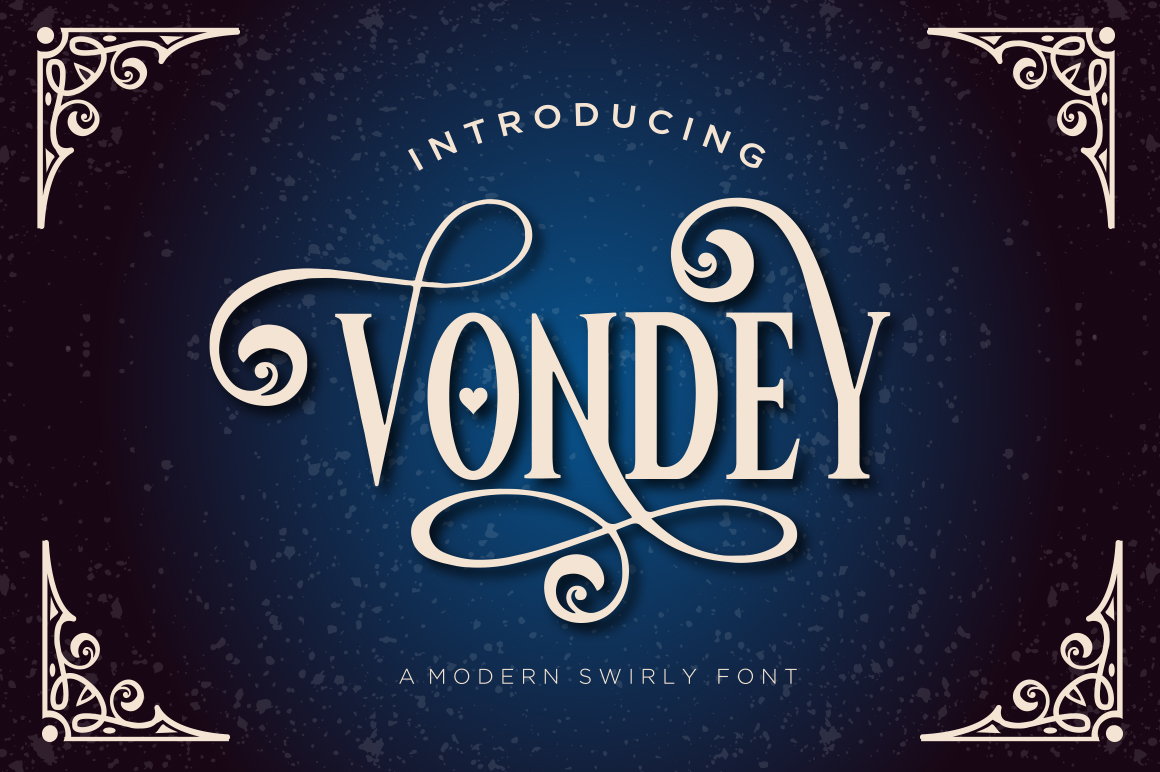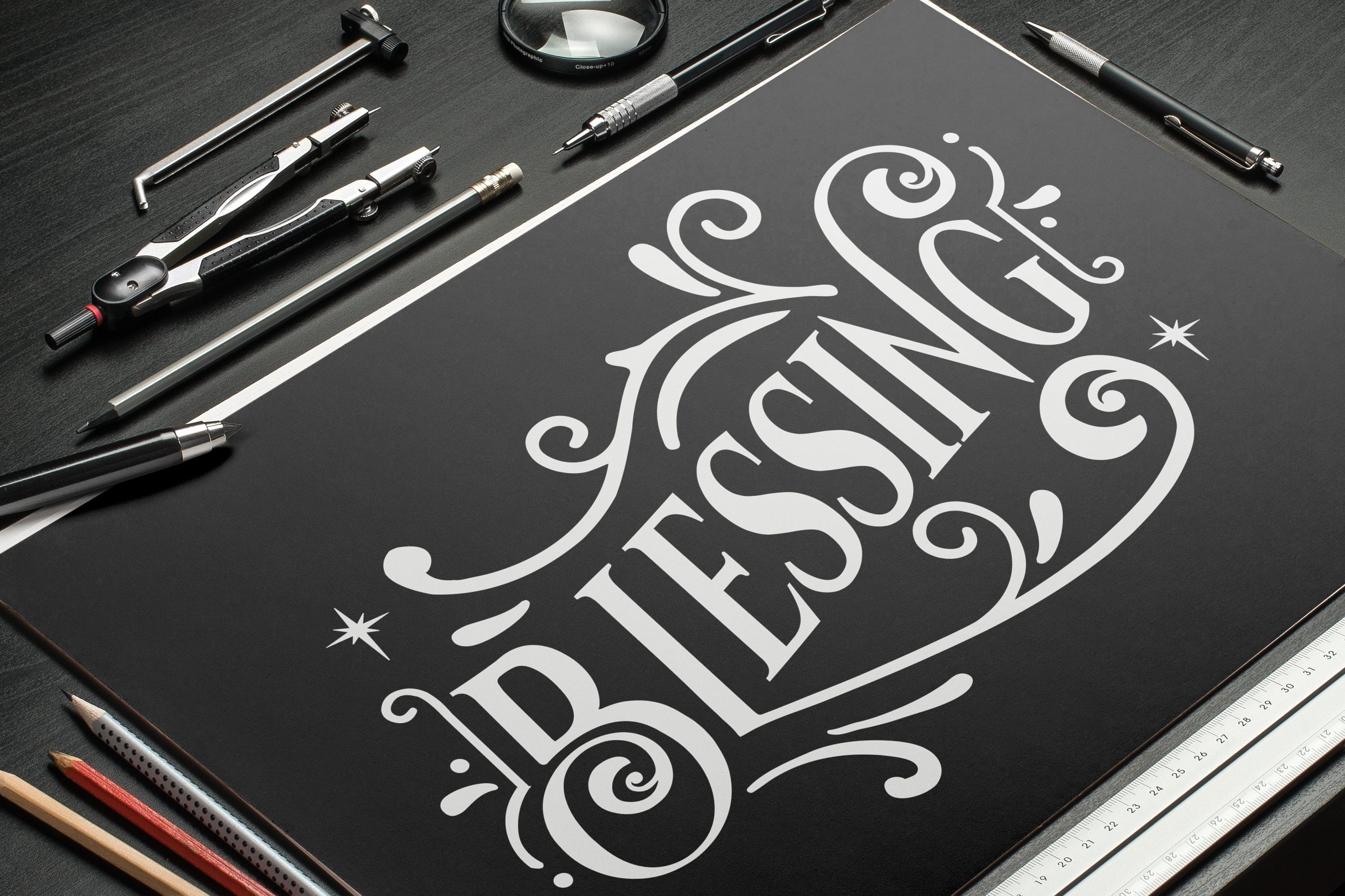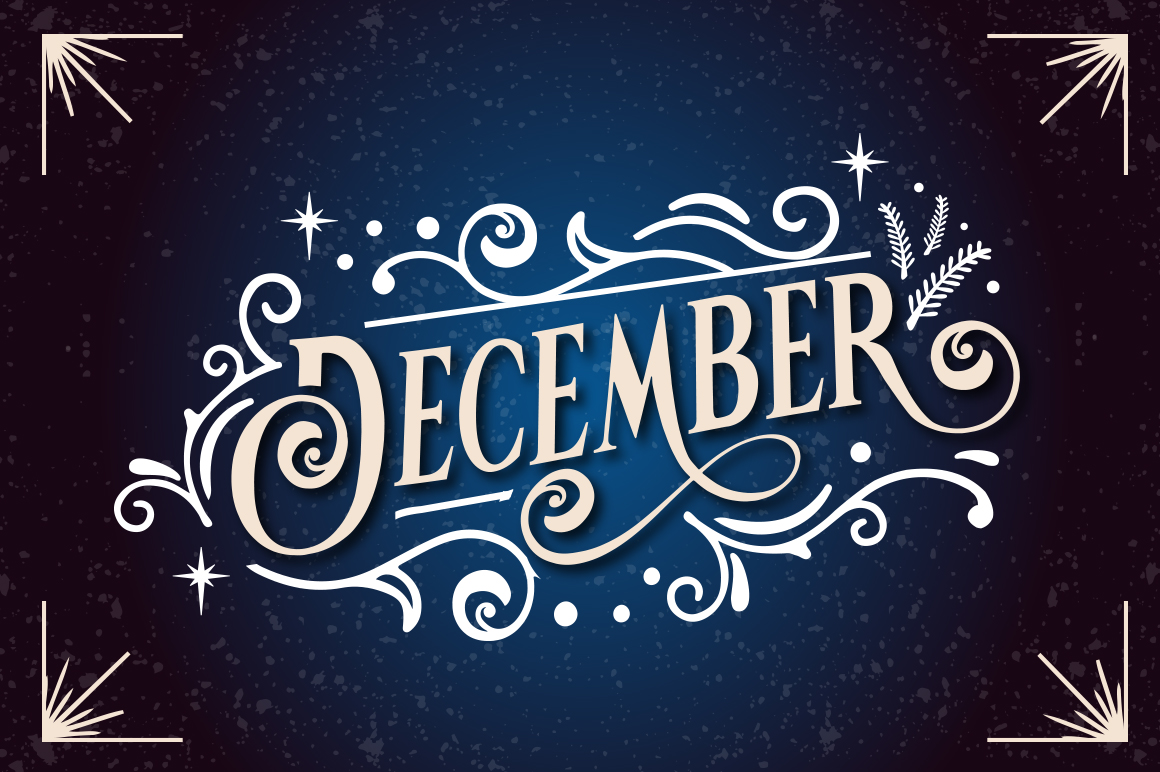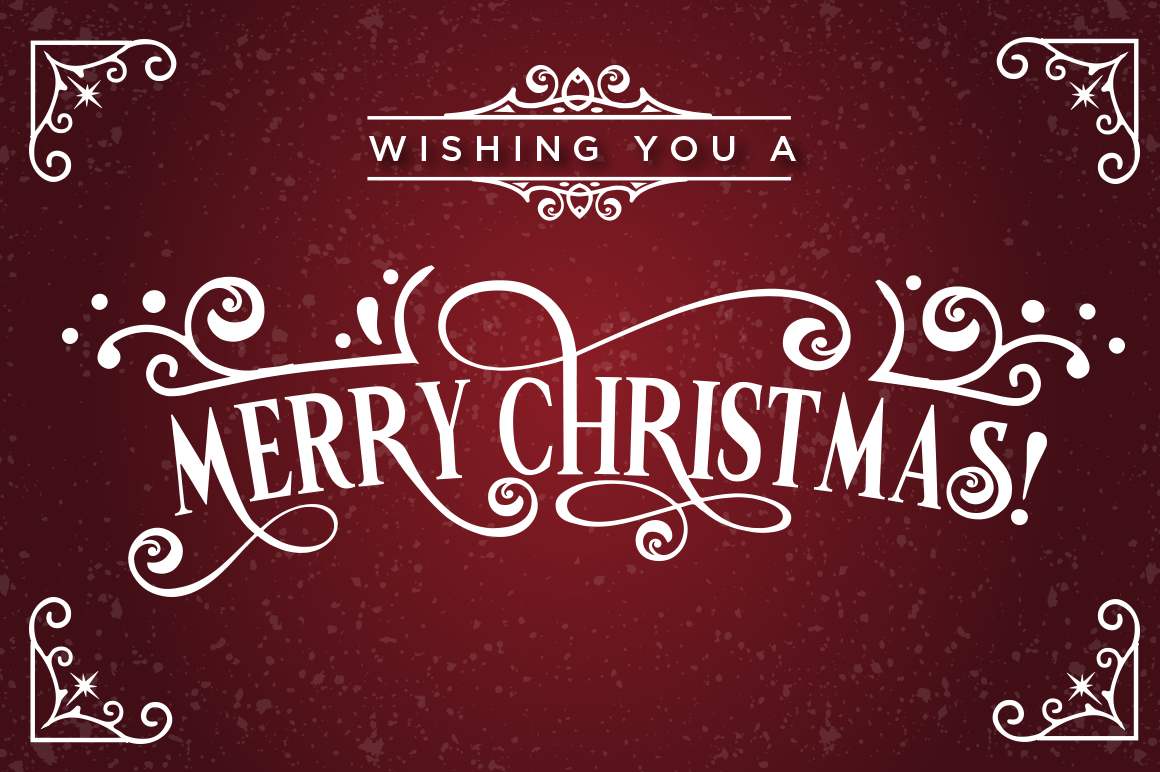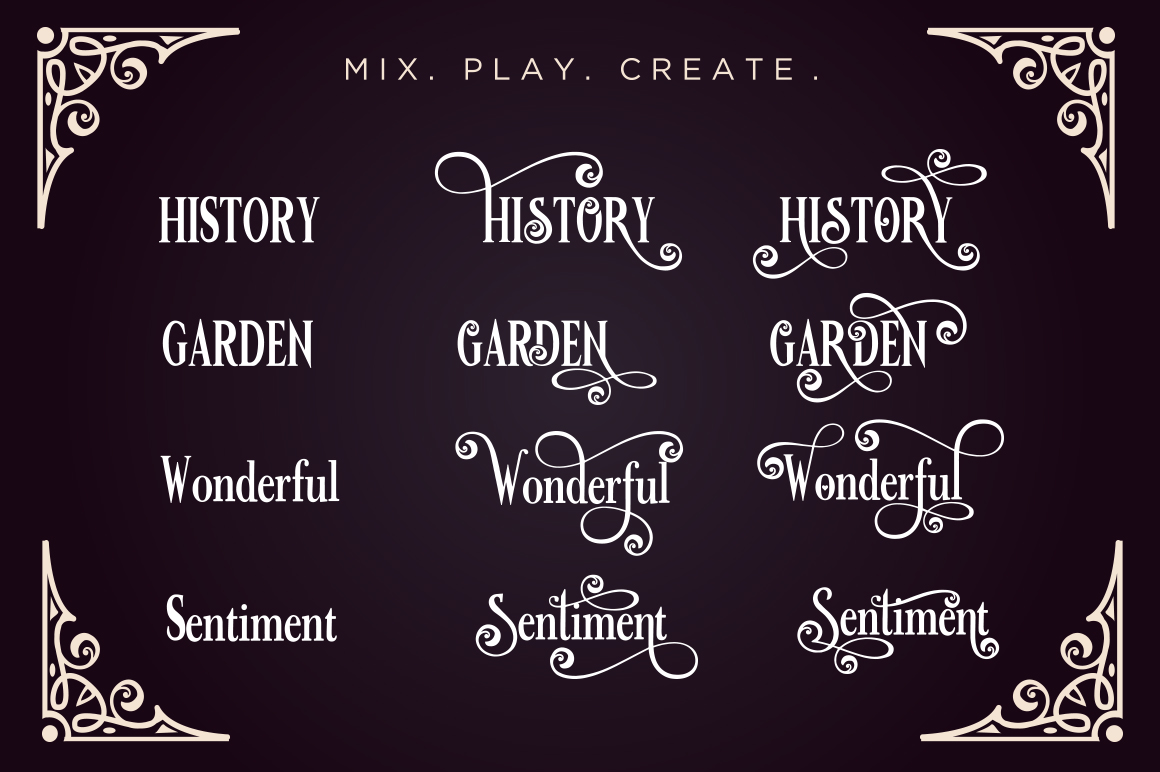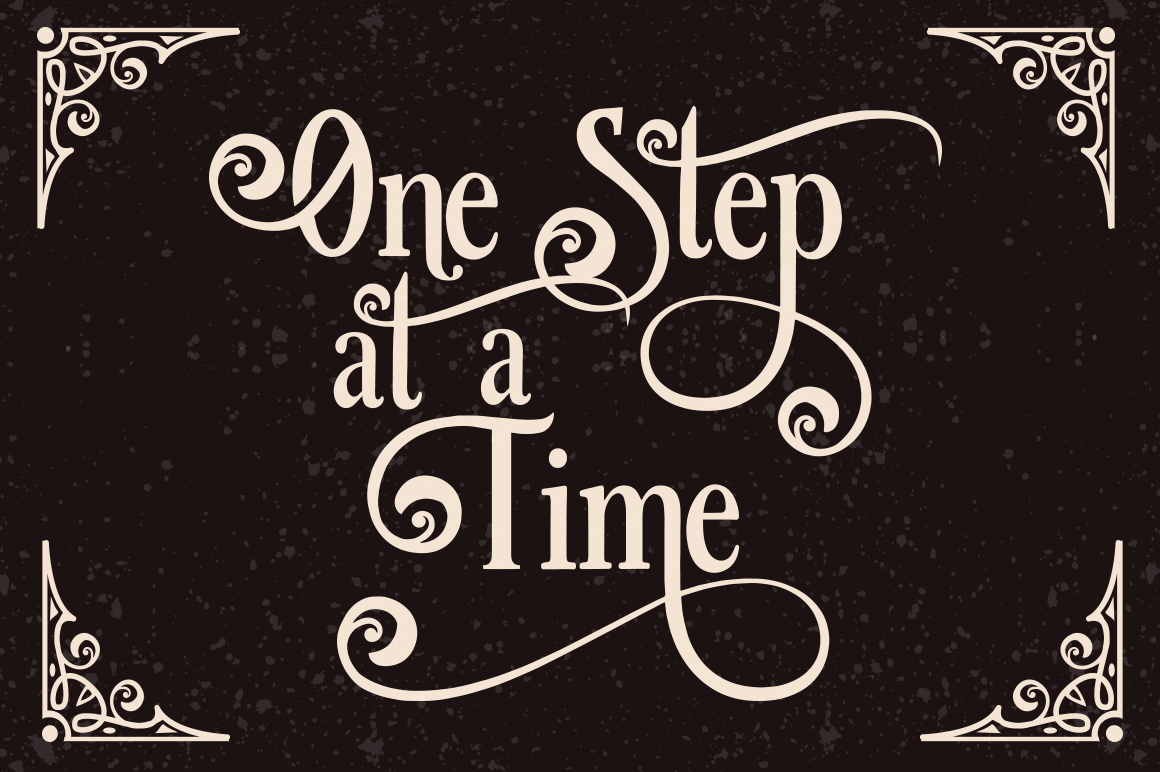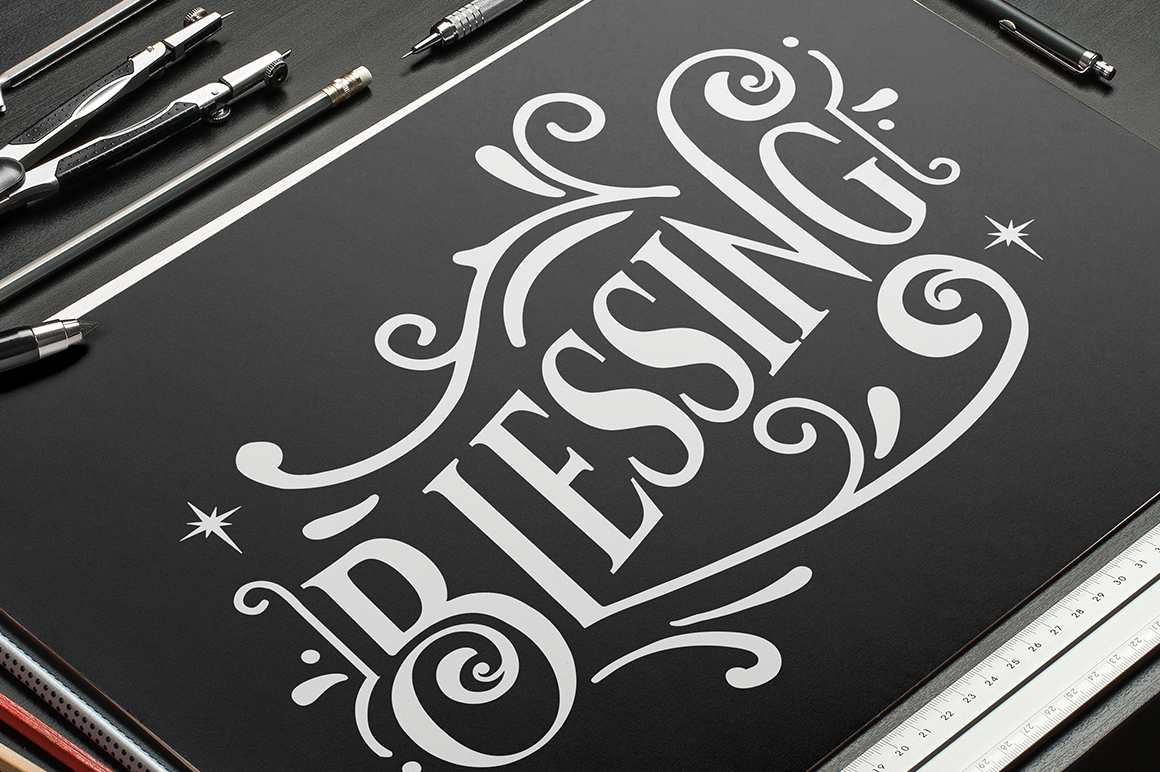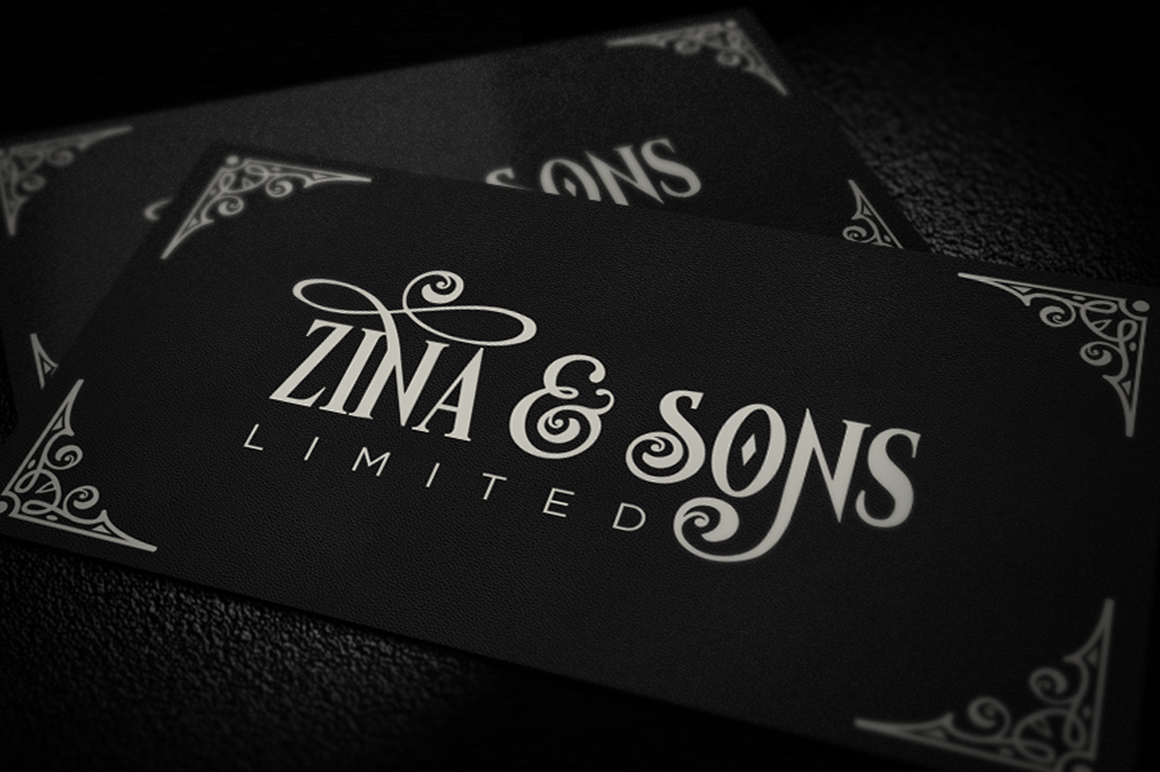
Not just for the holidays, Vondey is an amazingly crafted display font with a multitude of ornamental options. This is a font you don’t want to miss; robust, beautiful and versatile, Vondey is sure to be your go-to display font.